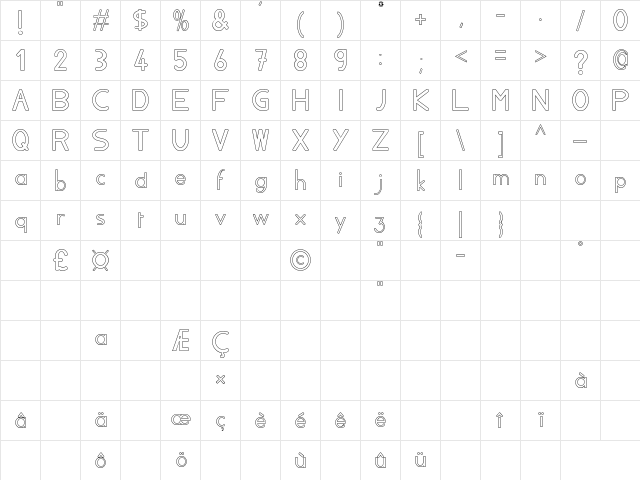
AylavideCS Regular
| Designer | Claude Soulayrac |
Design Context for AylavideCS Typeface
AylavideCS takes a measured approach to typography — its balanced proportions and neutral character make it a reliable workhorse for both digital and print work.